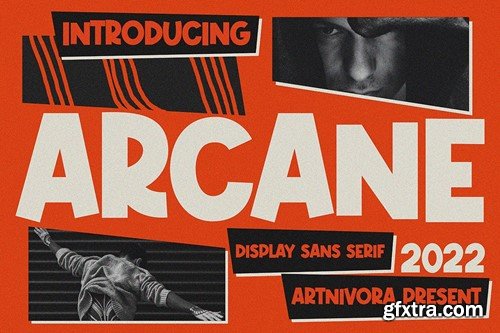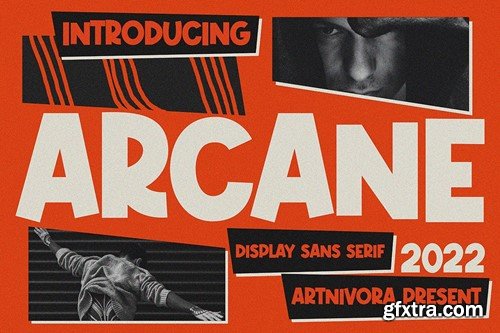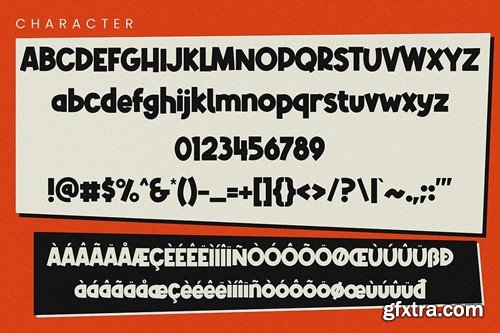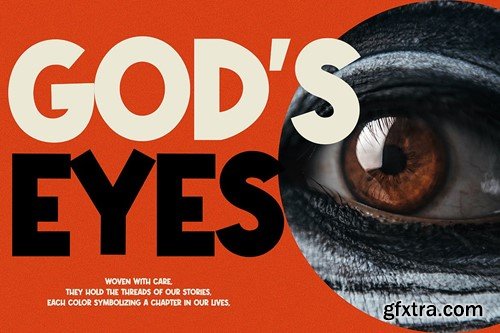
Arcane - Sans Serif Font B3PUPGN
Arcane - Sans Serif Font
Introducing Arcane, a simple and sans serif font. So perfect for you who needs a typeface for logo designs, magazine, social media, brochure, and many more.
Features
• Uppercase
• Lowercase
• Punctuation
• Numerals
• Multilingual Support